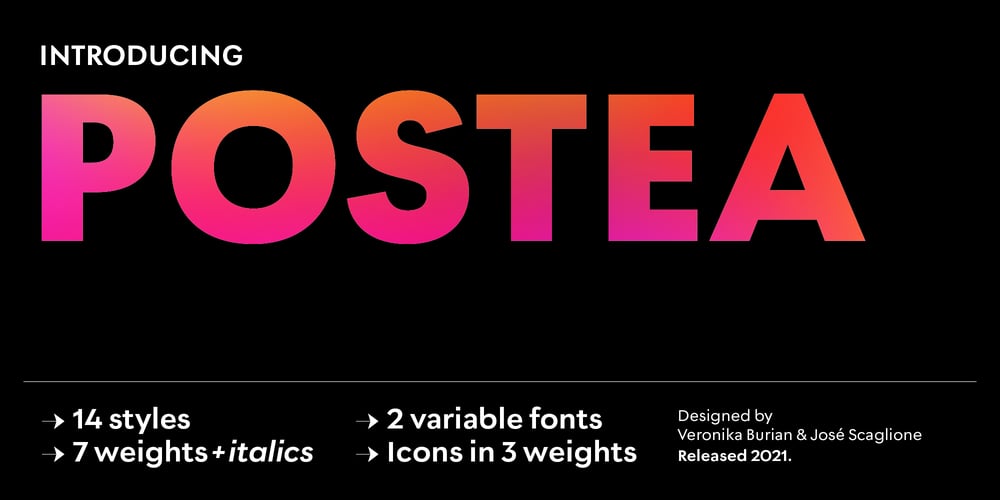
Postea Font Family was designed by Veronika Burian, José Scaglione and published by TypeTogether. Postea contains 14 styles and family package options. The Postea font family is Veronika Burian and José Scaglione’s take on German geometric typefaces, reshaped with the right attributes for setting paragraphs and headings, and perfect for branding and text use. Some typefaces are a rough tool, like a pumice rock: abrasive to the senses, unforgiving, and unhelpful for most reading situations. Postea is an obsidian: smooth and classy, with attractive nuances in any light. The classic curves and purposeful details keep its individuality intact while allowing it to fit an incredible range of geometric font needs. Because of these qualities, Postea makes normal reading in paragraphs a cinch and your branding memorable.Compared to midcentury attributes of restraint and a sparse appearance, Postea’s deliberate play between character widths injects life and distinctiveness into its personality. The default ‘t, f’ have lyrical doses akin to a robust evening drink and are rounded out with a serpentine ‘s’ and rotund ‘o, g, b’. Another nice surprise awaits: spacing for the Hairline weight is tighter for optimal use in large headings and titles, while the regular weights have the expected, slightly looser spacing for text. Setting the test word ‘bogarts’ brings all this together nicely, invoking a balance between a constructed and human feel while brushing away the dust from a century of derivatives.Postea is opinionated and its modern stylistic sets allow it to be accommodating with softer, specially-designed alternative characters. SS01 replaces ‘b, f, M, m, t’, while SS02 changes only the lowercase ‘a’ to the round style, and SS03 swaps out the angled ‘y’ for a straight version. The fourth and sixth stylistic sets are packed with wallpaper-worthy geometric patterns, ornaments, arrows, and symbols aplenty.Postea’s 14 styles (seven upright and italic) and two variable fonts are accompanied by an all-new family of icons in three weights, which we developed a new, easy way to activate. Simply bookend the desired icon name with colons (:arrowUp: :chargingStation: :aid: :firstAid:), making sure to capitalise each word after the first word, then highlight and activate SS05. Icons include wayfinding, social interface, sanitary precautions like face masks, thermometers, and hand washing, and much more.Postea is resilient in the number of ways the family can be used, and its recognisable characters make it a prime selection for branding, signage, corporate typefaces, and magazines. Beginning with midcentury virtues, Postea is the rational response for text — a lyrical take on geometric sans serifs.